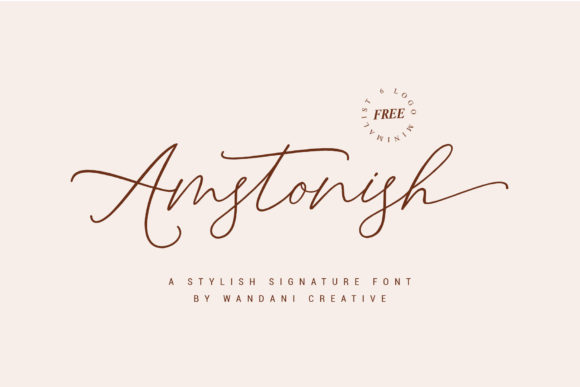
Amstonish Font: Elegant Script for Small Business Branding
Elevating Brand Identity with Amstonish Script Handwritten Fonts
Amstonish is a delicate, elegant and flowing handwritten font that serves as a cornerstone for small businesses aiming to establish a sophisticated and trustworthy visual identity. When you are building a brand from the ground up, selecting the right typeface is one of the most critical decisions you will make because it communicates your values before a customer even reads your copy. As one of the most versatile script handwritten fonts available for commercial use, Amstonish offers a level of refinement that helps handmade sellers, boutique owners, and service providers stand out in a crowded marketplace. The beautiful and well-balanced characters ensure that your logo, business cards, and website headers feel cohesive rather than chaotic. For entrepreneurs, consistency is key to recognition, and this typeface provides a reliable aesthetic anchor across all your marketing materials. By integrating Amstonish into your core brand assets, you signal to potential clients that you pay attention to detail and care about quality, which directly influences their perception of your products or services.
Designing Product Packaging and Labels with Amstonish Typeface
Applying Amstonish to product packaging and labels transforms ordinary items into premium goods through the strategic use of elegant fonts. Whether you are selling artisanal candles, organic skincare, specialty coffee, or custom jewelry, the tactile nature of a flowing script adds a human touch that mass-produced typography simply cannot replicate. Because Amstonish has beautiful and well-balanced characters, it remains legible even when scaled down for small jar labels or hang tags, which is a common pain point for makers using overly ornate display fonts. The delicate strokes suggest luxury and craftsmanship, making it an ideal choice for beauty brands and gift shops where the unboxing experience is part of the product value. When designing your packaging, consider using Amstonish for the product name or a signature tagline while keeping regulatory text in a clean sans serif to maintain compliance and readability. This practical application of script handwritten style ensures your shelf presence is attractive without sacrificing necessary information, helping your products look professional in both physical retail environments and e-commerce thumbnails.
Creating Memorable Social Media Graphics Using Amstonish Font
Social media content creation becomes significantly more effective when you incorporate Amstonish as a consistent visual element across Instagram, Pinterest, and Facebook platforms. In the fast-scrolling environment of social feeds, a distinctive script handwritten font acts as a visual stopper that reinforces brand recall instantly. Amstonish is particularly effective for quote graphics, announcement overlays, and story highlights because its flowing nature feels personal and authentic rather than corporate or stiff. For small business owners managing their own marketing, having a go-to creative font like Amstonish streamlines the design process; you no longer have to search for new typefaces for every post. Instead, you can build templates that utilize this elegant script for headlines and accents, ensuring your feed looks curated and professional. Remember to test contrast ratios when placing this delicate font over photographs, as the thin lines may require a subtle drop shadow or background overlay to remain readable on mobile screens. By treating your social media typography with the same intention as your packaging, you create a seamless digital storefront that builds trust with followers.
Enhancing Customer Experience with Amstonish in Print Materials
Customer-facing print materials such as thank-you cards, menus, and invoices benefit immensely from the warm, inviting personality of Amstonish fonts. For service-based businesses like wedding planners, photographers, or coaches, the stationery you hand to a client is a tangible extension of your service quality. Using a delicate, elegant and flowing handwritten font on a welcome packet or a dining menu creates an emotional connection that standard system fonts lack. In a café setting, Amstonish works beautifully for chalkboard specials or printed menu headers, evoking a sense of artisanal care that justifies premium pricing. However, practicality must always guide your design choices; while Amstonish is perfect for titles and signatures, body text should remain in a highly readable serif or sans serif to prevent eye strain. This balanced approach ensures that your business materials are not only aesthetically pleasing but also functional. When customers receive a beautifully typeset note or menu, they perceive higher value in your offering, which encourages repeat business and word-of-mouth referrals.
Pairing Amstonish with Clean Fonts for Professional Web Design
Web design projects achieve better hierarchy and usability when Amstonish is paired thoughtfully with complementary sans serif or serif fonts. While Amstonish shines as a display font for hero banners, section dividers, and call-to-action buttons, it should rarely be used for long-form paragraphs or navigation menus. The key to successful font pairing is contrast; the fluidity of this script handwritten typeface needs the stability of a geometric sans serif or a traditional serif to ground the layout. For example, a boutique clothing site might use Amstonish for "New Arrivals" headers while using a neutral sans serif for product descriptions and filter options. This combination maintains the elegant vibe of the brand without compromising the user experience or SEO performance. Additionally, web performance matters; ensure you are loading the specific weights of Amstonish you actually need to keep site speed optimal. By respecting typographic hierarchy, you allow Amstonish to add character to your website without becoming a distraction, ultimately guiding visitors toward conversion points with clarity and style.